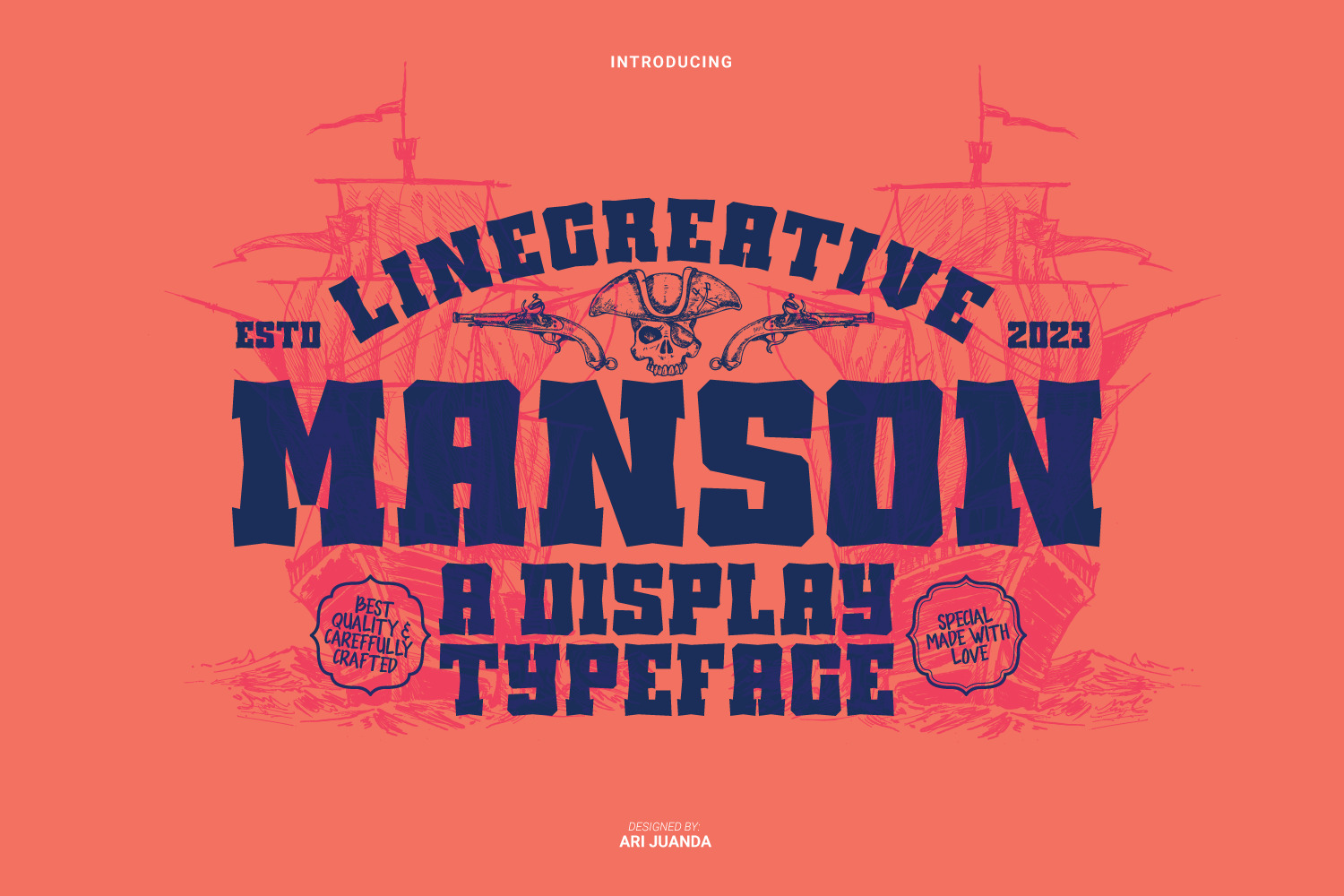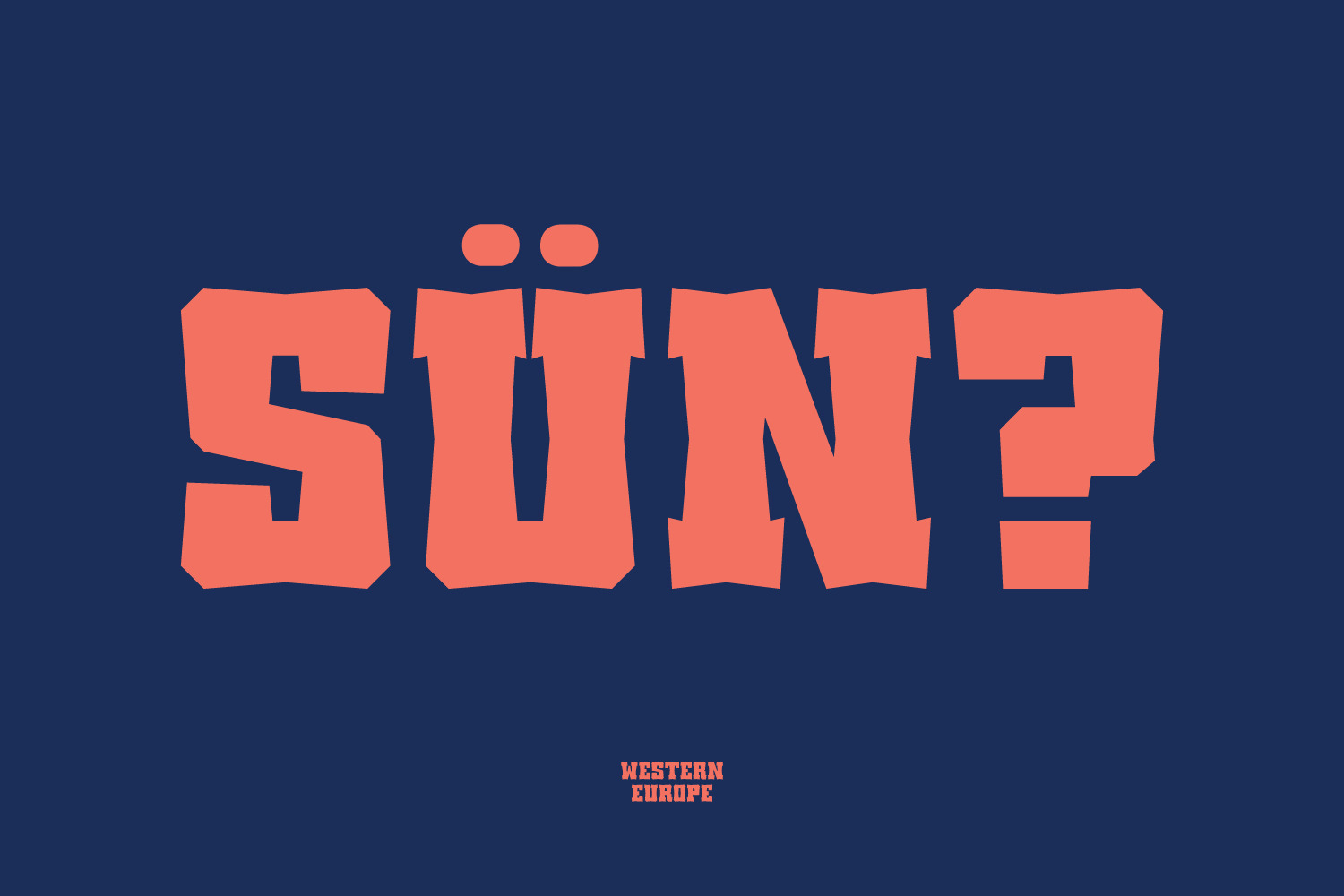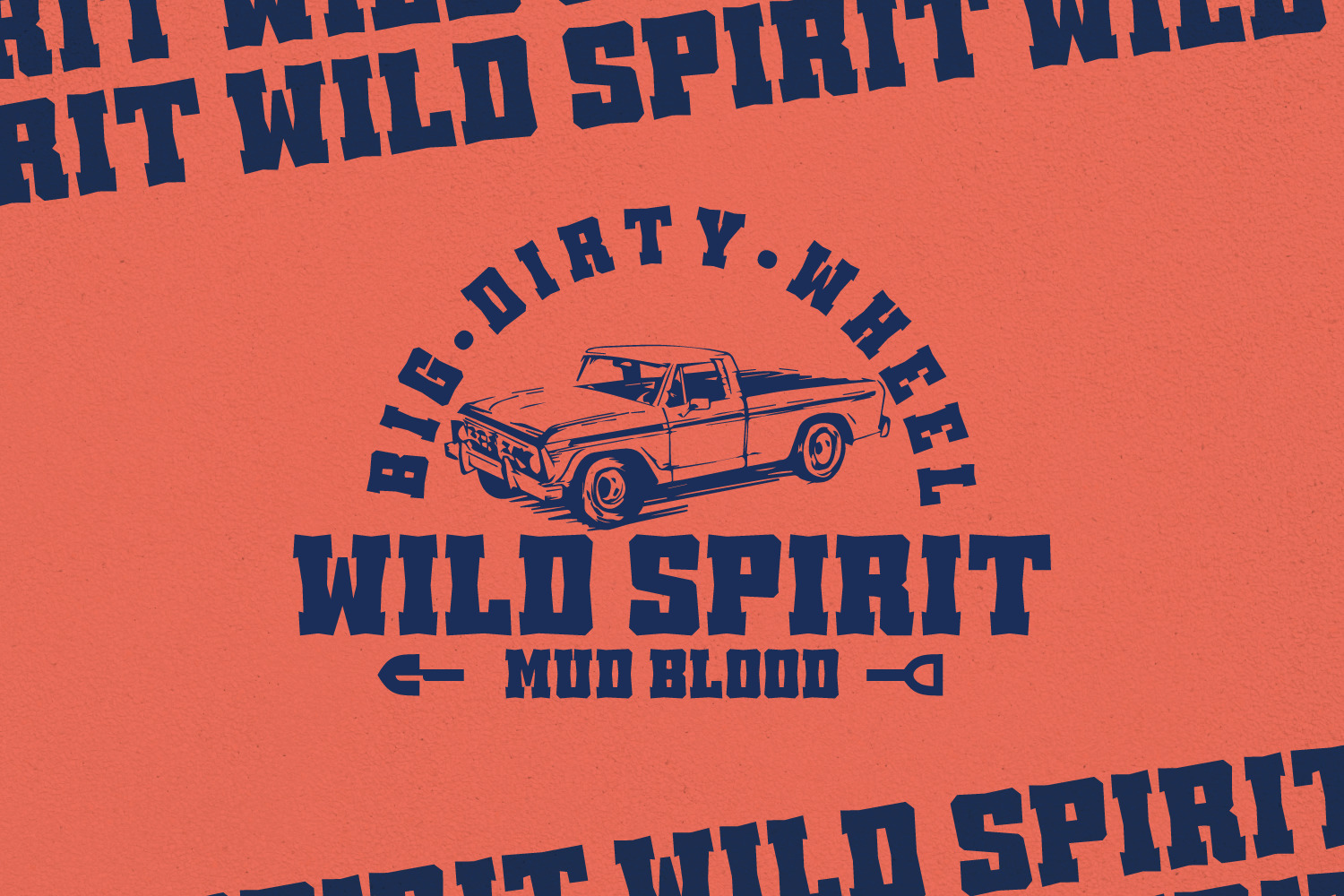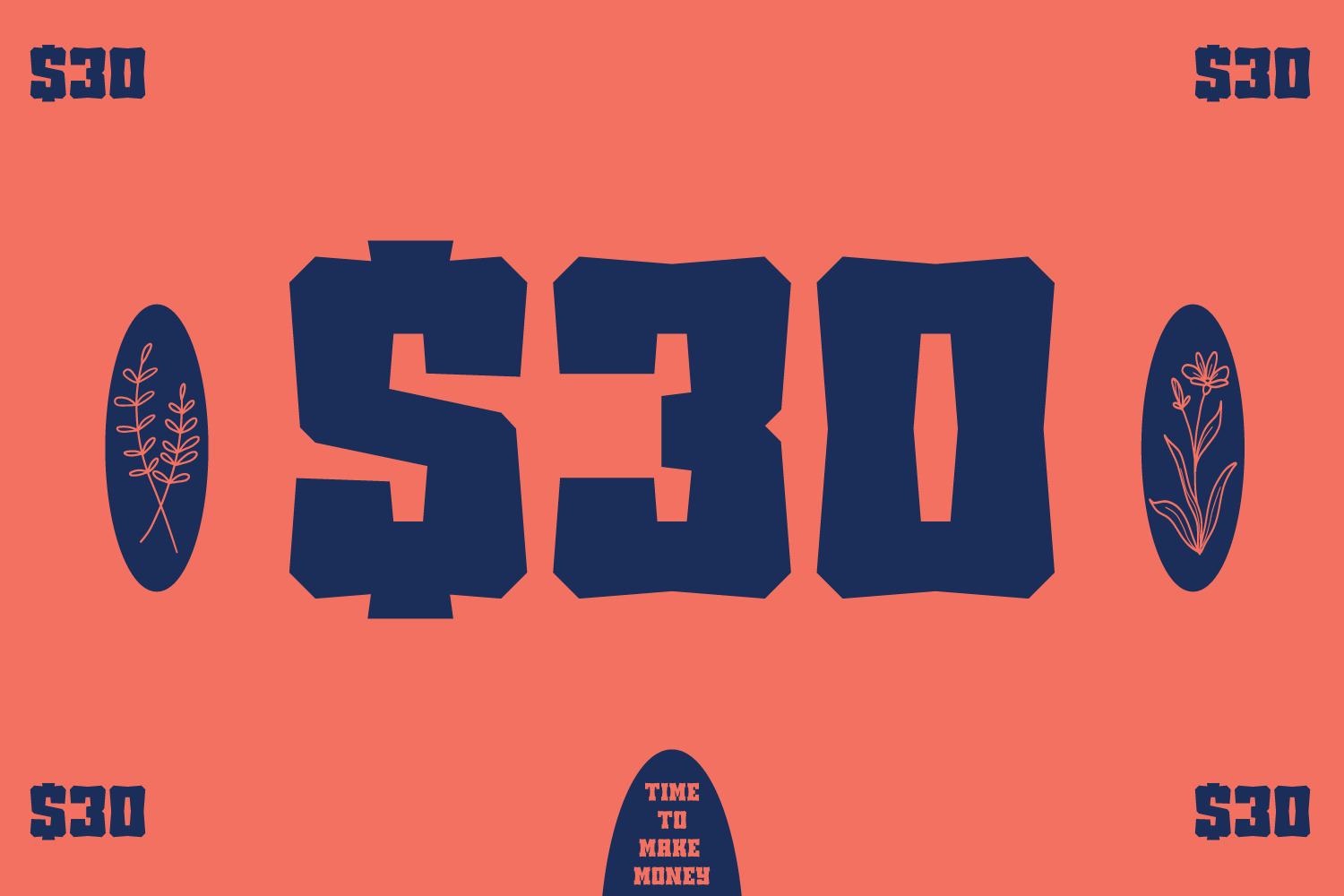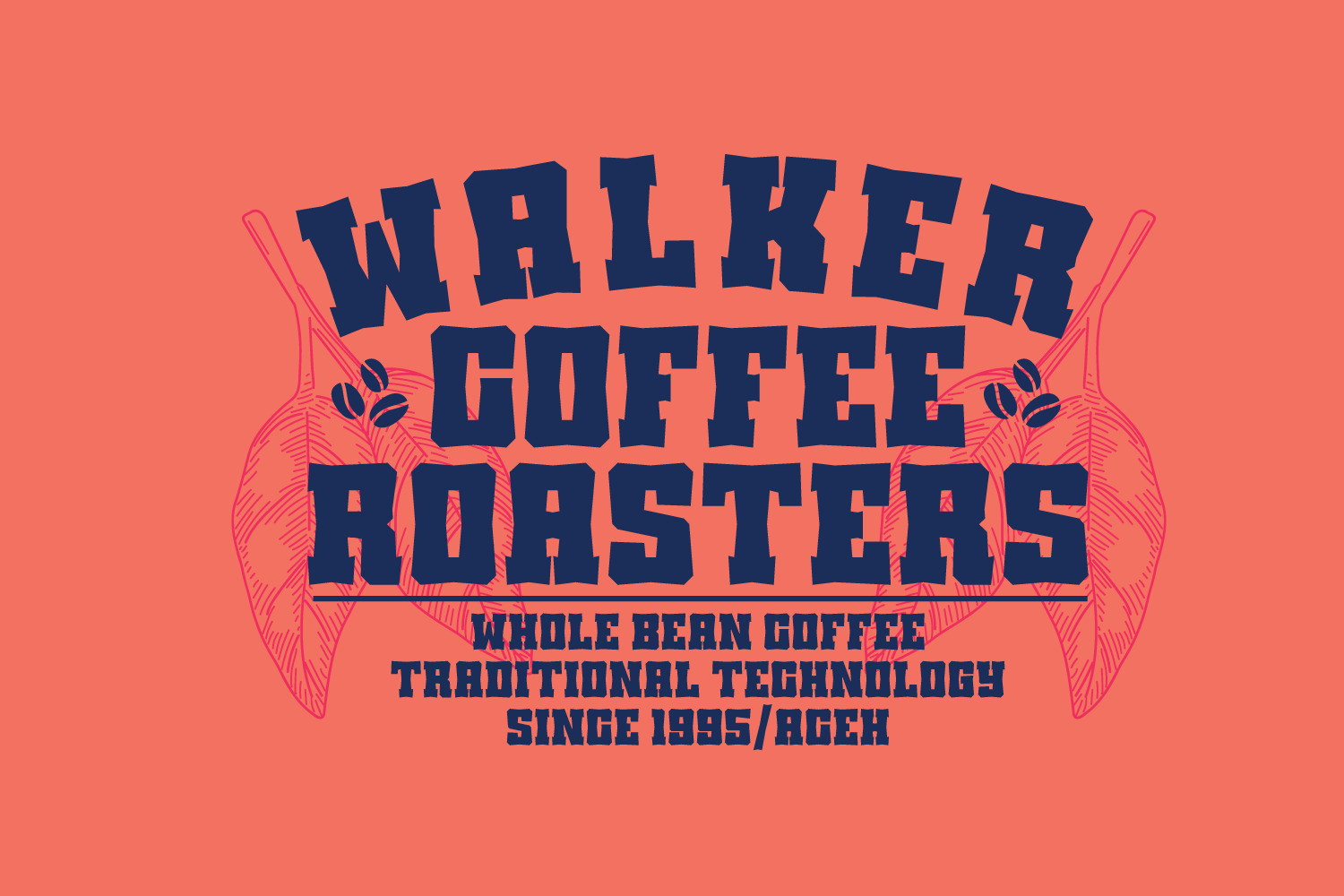
Manson Font
Manson font , created because it was inspired by the shape of colossal stone pillars, a unique shape where at the waist the font structure is curved and this gives a solid impression.
This font perfect for vintage and poster designs as well as for your logo design, brand image, retro poster, handwritten quotes, product packaging, merchandise and more